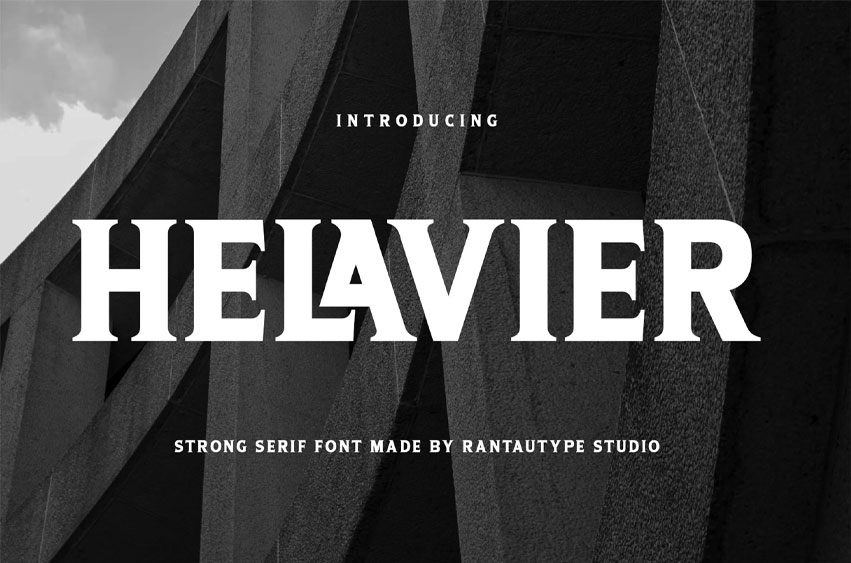
Helavier Font
Helavier Font is a strong, bold font with exudes power, clarity, and confidence. Designed to make an impact, it features thick strokes, sharp edges, and commanding letterforms that immediately draw attention.
Helavier is a perfectly choice for any creative endeavor, creating, modern, lifestyle design such as logotype, title, cover, branding, invitations, wedding designs, display and magazine, social media posts, advertisements, printed quotes, product packaging, corporate brand, product designs, labels, photography, watermarks, special events and any other project with modern touch.